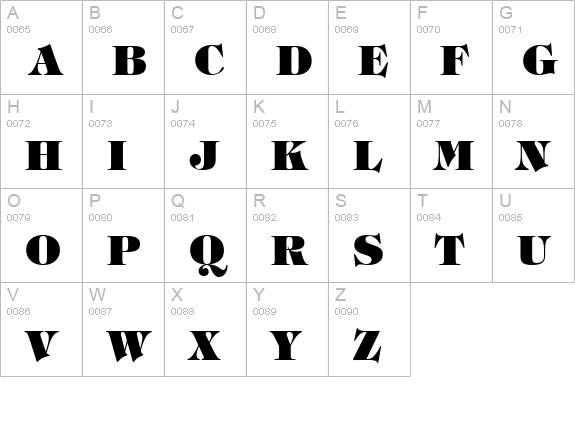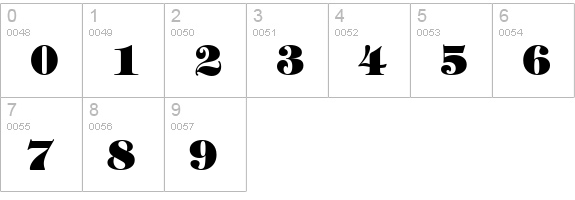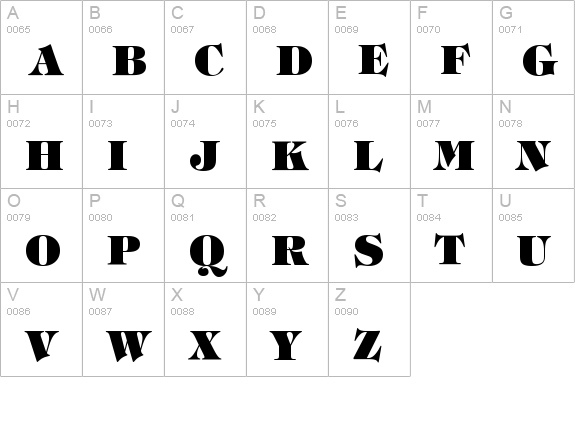
Tiffany Heavy BT is a heavy, high-impact variant in the Tiffany typeface family \xE2\x80\x94 well suited to high-impact headlines, posters, and display advertising.
Tiffany Heavy BT is a stunningly bold and expressive typeface that exudes power and confidence. With its thick, strong lines and commanding presence, this font is perfect for making a bold statement in any design project. This font features a unique combination of elegance and strength, making it ideal for headlines, titles, and logos that demand attention. Its bold letterforms are carefully crafted to grab the viewer's eye and leave a lasting impression. Not only does Tiffany Heavy BT offer exceptional visual impact, but it is also incredibly versatile. Its clean and clear design ensures legibility at both large and small sizes, making it suitable for a wide range of applications, from print materials to digital media. The best part is that Tiffany Heavy BT is available for free! You can download this exceptional font and unleash its power in your designs, all at no cost. Simply head over to FontsMarket.com and grab this font to elevate your creative projects to new heights. Whether you're designing a striking poster, a captivating website, or a memorable branding campaign, Tiffany Heavy BT is your go-to font for making a statement. Embrace its boldness, embrace its elegance, and let it transform your designs into works of art. Download Tiffany Heavy BT for free at FontsMarket.com and unlock its unlimited potential today.